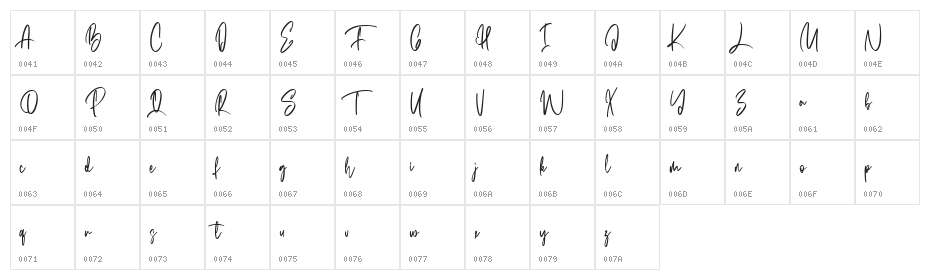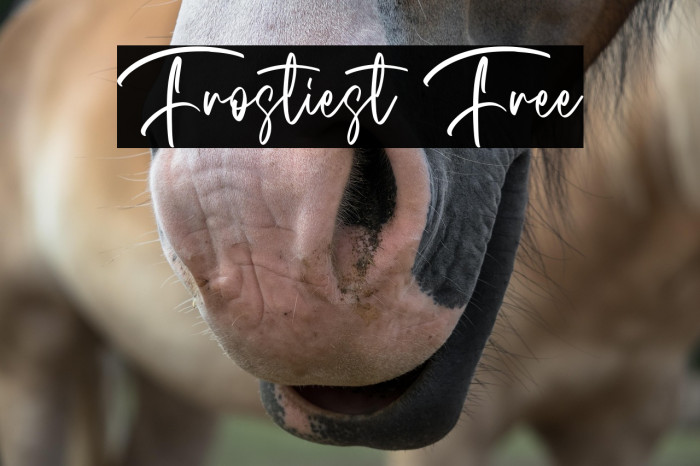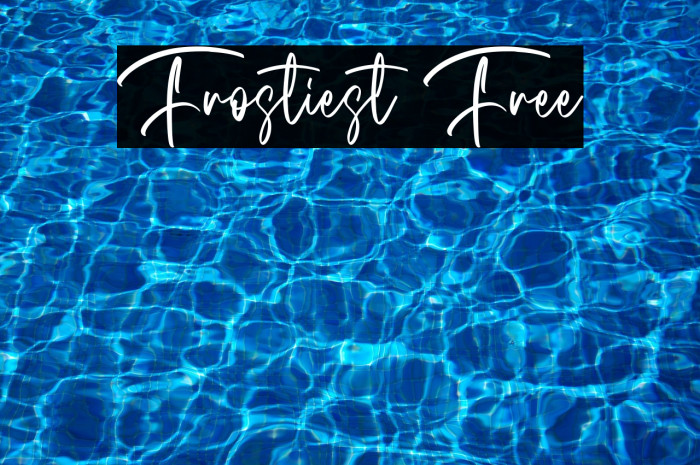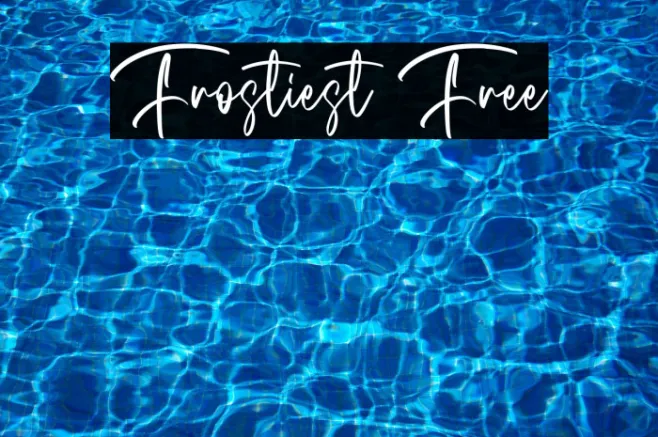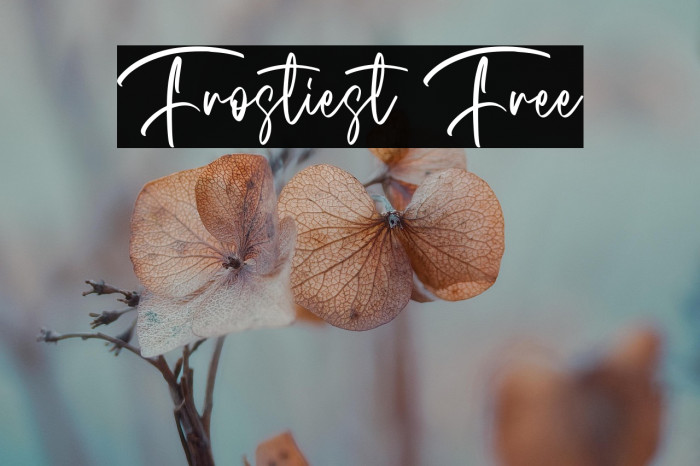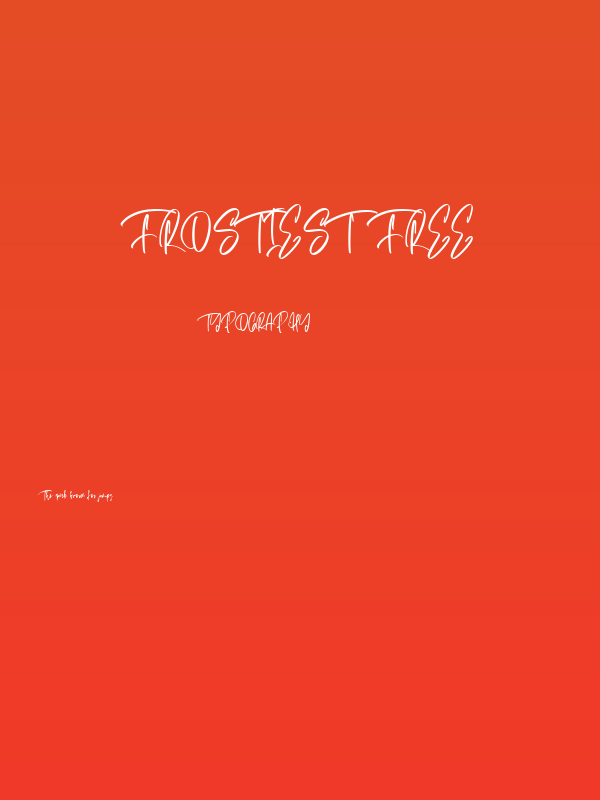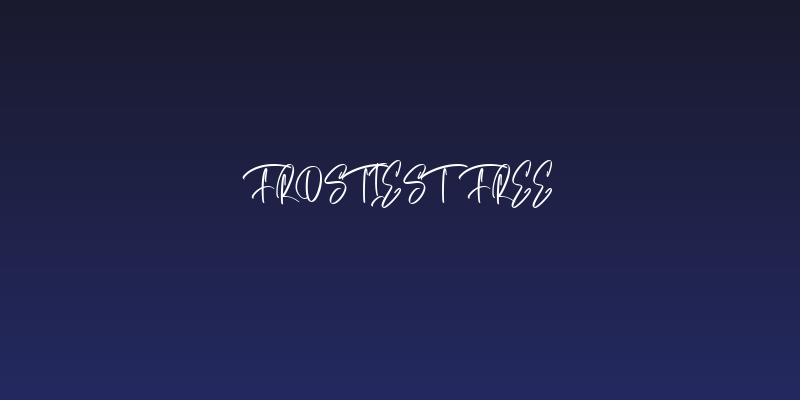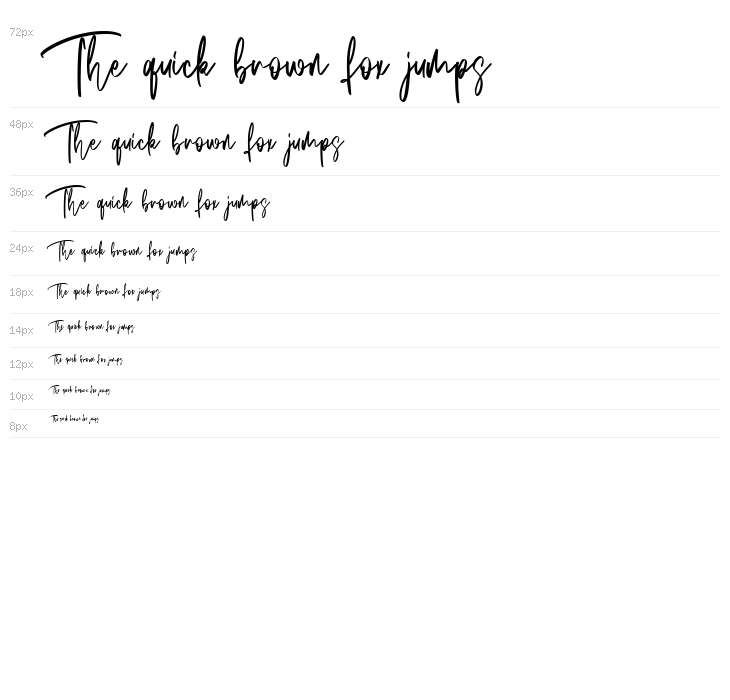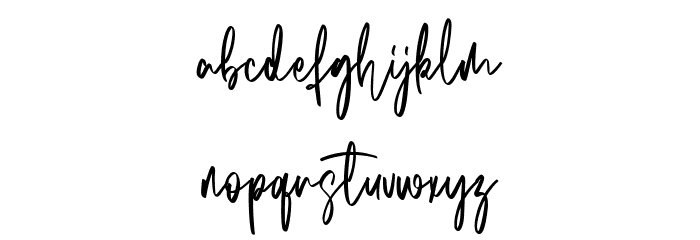
Frostiest Free Font
Frostiest Free Description
This font features a lively and expressive script style, characterized by its fluid, cursive strokes and elegant loops. The uppercase letters are bold and dynamic, with a playful yet sophisticated flair, while the lowercase letters maintain a consistent flow with delicate curves. The overall design exudes a sense of creativity and personal touch, making it ideal for projects that require a handwritten feel. The font's unique style is both modern and timeless, offering versatility for various design applications.
| Use Case | Logos, Invitations, Social media graphics |
| Proposed Projects | Ideal for wedding invitations, greeting cards, logos, branding, and social media graphics. |